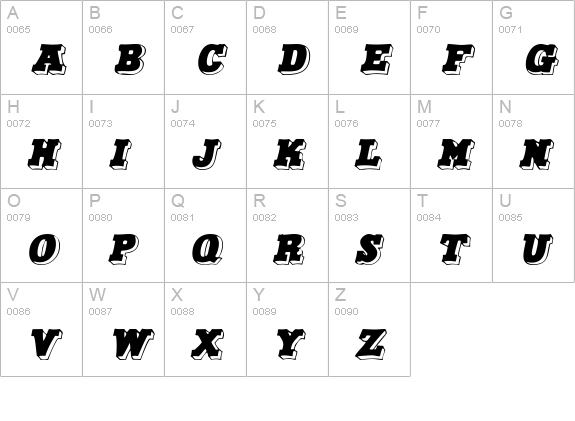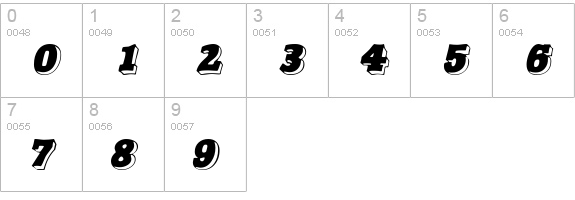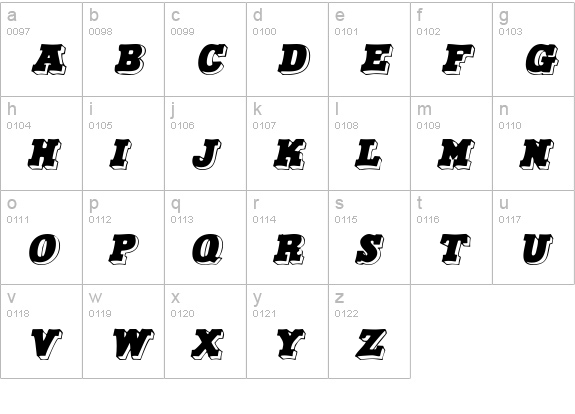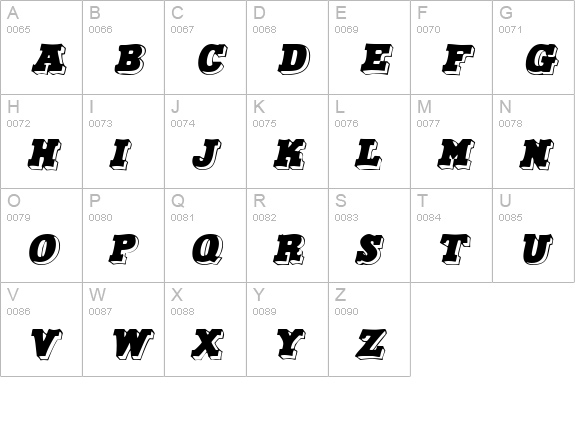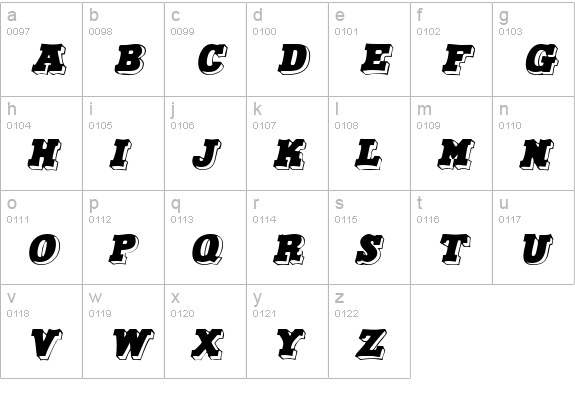
Fairbanks Italic Font Details
Fairbanks Italic is a distinctive, italic variant in the Fairbanks typeface family \xE2\x80\x94 well suited to design and typography projects.
Fairbanks Italic is a stylish and elegant typeface that exudes sophistication and modernity. With its sleek and slanted design, this font is perfect for adding a touch of flair to any project. Whether you're designing a logo, creating a poster, or crafting a website, Fairbanks Italic will elevate your work to the next level. What sets Fairbanks Italic apart is its versatility and readability. The clean lines and unique curves make this font easy to read, even at smaller sizes. Its italicized style adds a sense of movement and dynamism, making it a great choice for conveying energy and excitement in your designs. Best of all, Fairbanks Italic is available for free download at FontsMarket.com. This means you can add this beautiful font to your collection without any cost, making it a valuable asset for any designer or creative professional. Don't miss out on the opportunity to enhance your projects with the timeless elegance of Fairbanks Italic. Download it today and see the difference it can make!